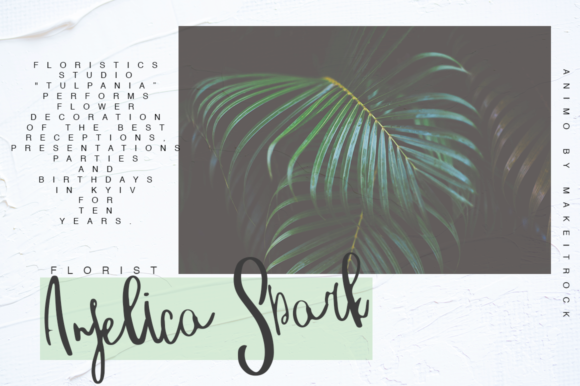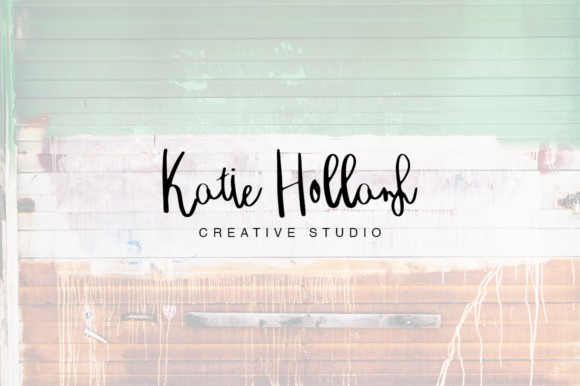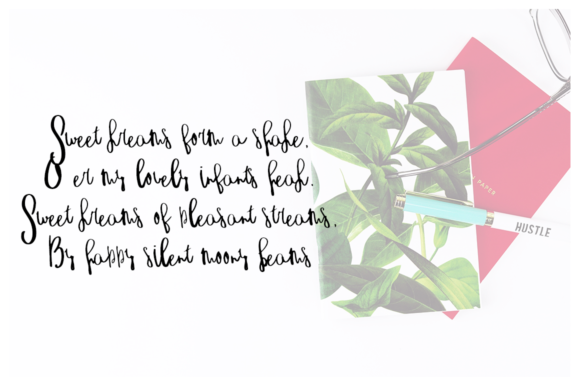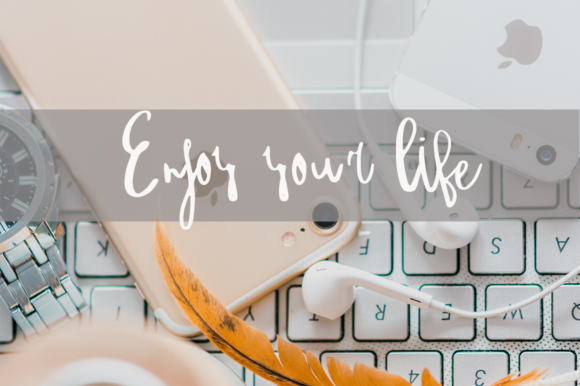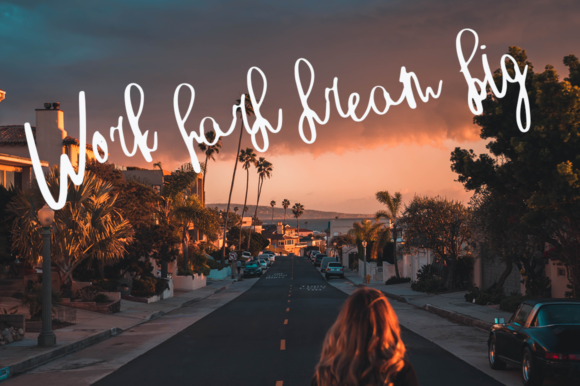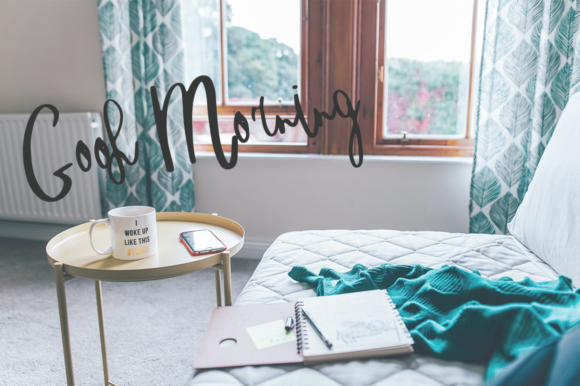
Animo Font
About Animo Font
Animo has been attentively written with gentle curves to produce a font that’s completely distinctive and original. Perfect for adding a elegant and unique touch to your lettering projects and branding.
Animo is perfect for creating wedding lettering or just as a beautiful frame for your home.